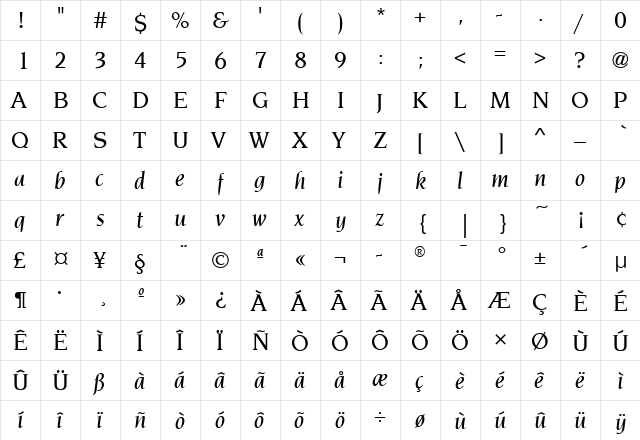
NovareseMdITC Italic
Design Context for NovareseMdITC Typeface
NovareseMdITC is a composed and adaptable typeface that performs quietly and consistently across a wide range of design contexts. The slanted form adds forward momentum and visual energy.
Pro Tip: Try NovareseMdITC for annotation and caption copy alongside an upright companion — the contrast in angle creates a dynamic but ordered typographic system.